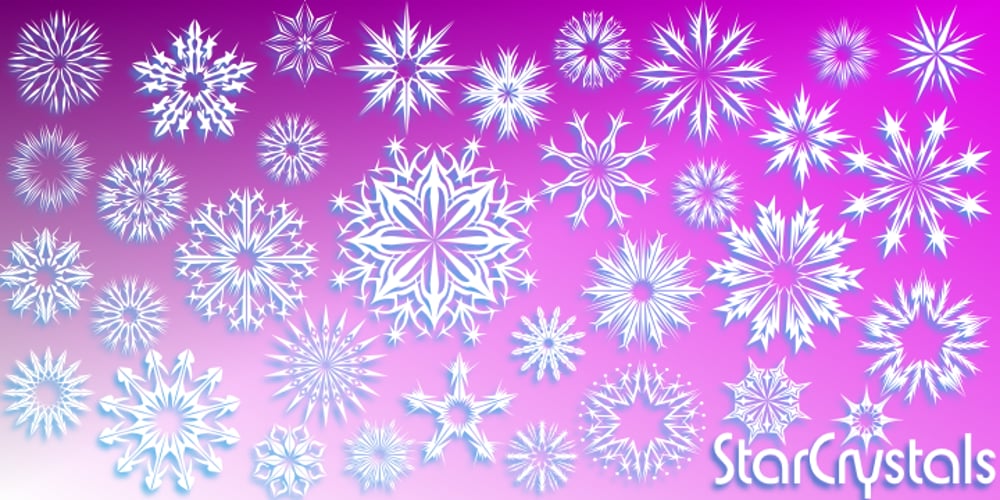
Star Crystals
Star Crystals font
Star Crystals Font Family was designed by Denise Koehler and published by Deniart Systems. Star Crystals contains 1 styles and family package options. Star bright tonight! Deniart’s StarCrystals typeface is an original design featuring 62 unique snowflake symbols. These geometric starburst snow crystals are sure to add elegance to all your winter designs. This font comes with a PDF guide to put all these special characters right to your fingertips! TIP: pair this one up with our SnowChrystals typeface for an even greater winter snow experience – a virtual snow storm of crystals for all your decorative needs.